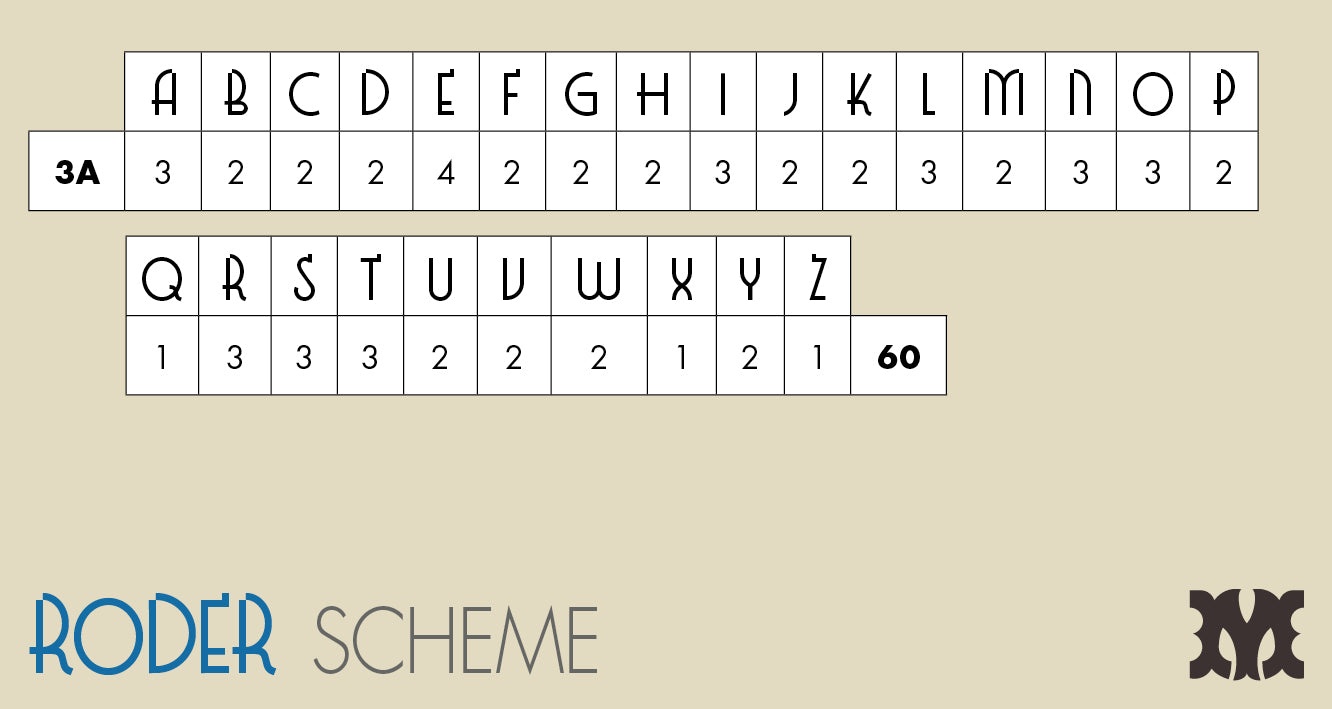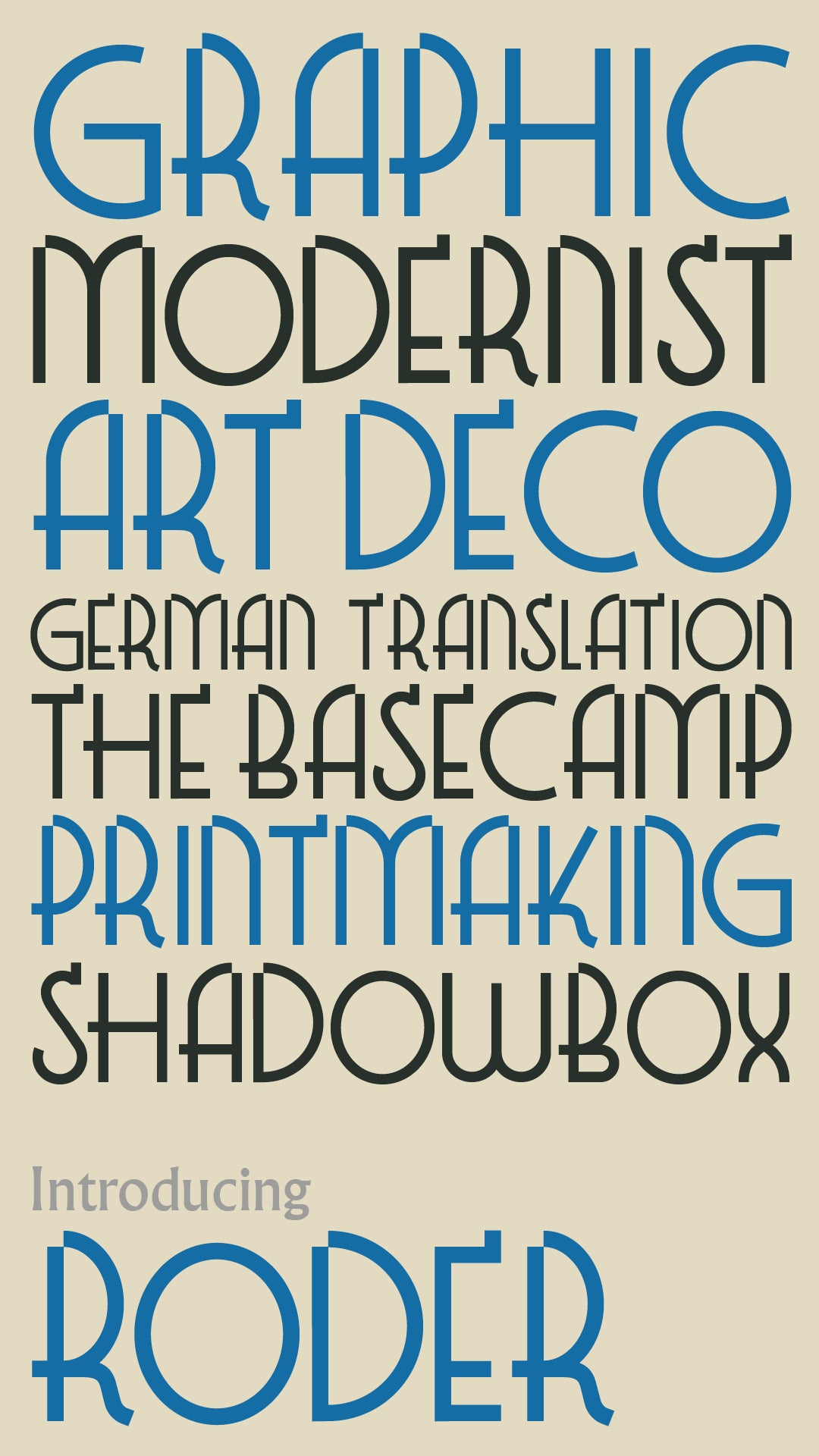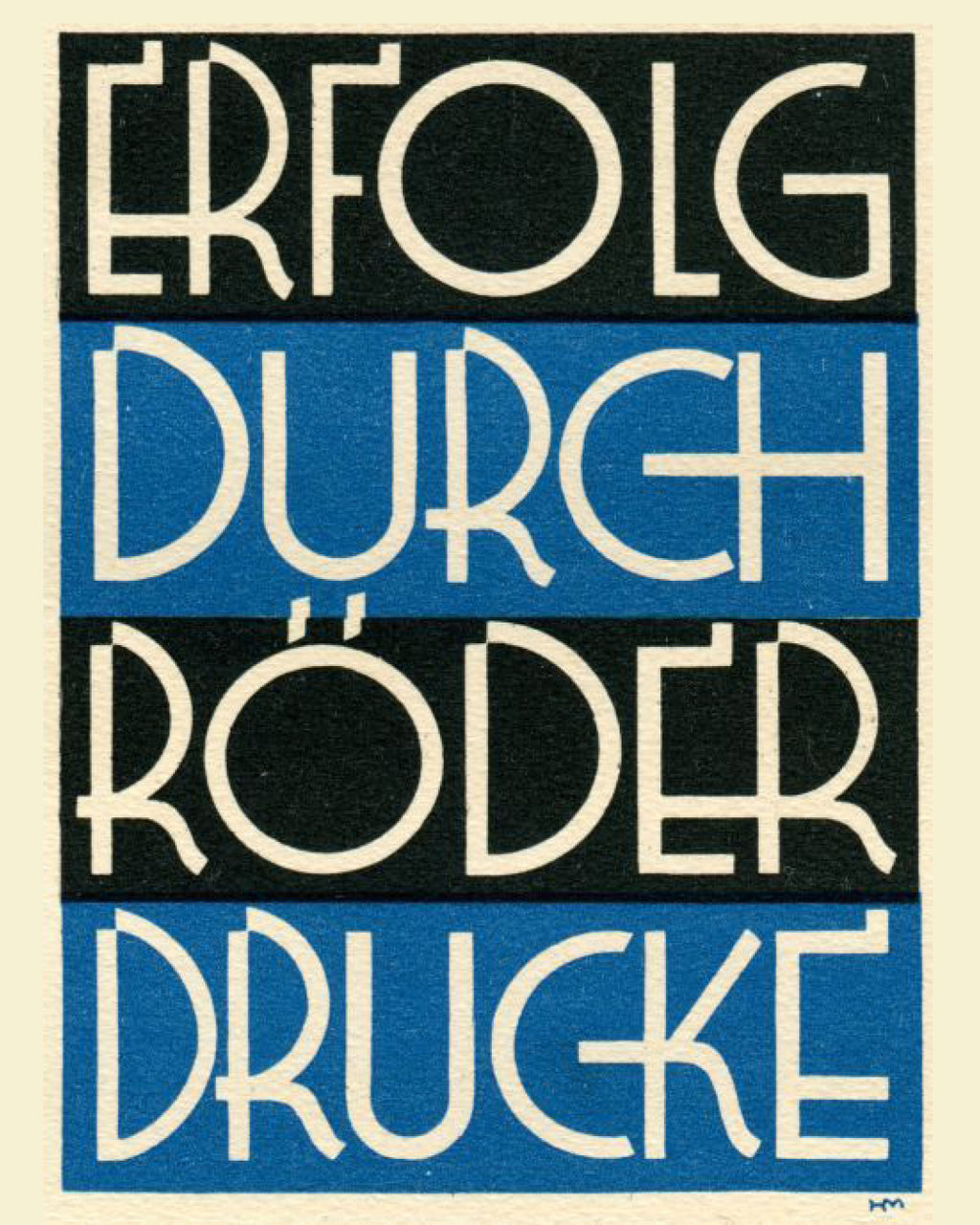
'Roder' letterpress woodtype typeface
Introducing 'Roder' - a typeface based on 1930s poster by Hans Muller for the Röder print company.
10 line (42.3mm) size cut from end grain English hardwood using a combination of modern CNC technology and traditional hand woodworking tools (including an original printers saw), made to English type-high (0.918in or 23.3mm) within plus or minus 0.1mm tolerance, sealed with shellac and hand finished with a traditional polished printing surface.